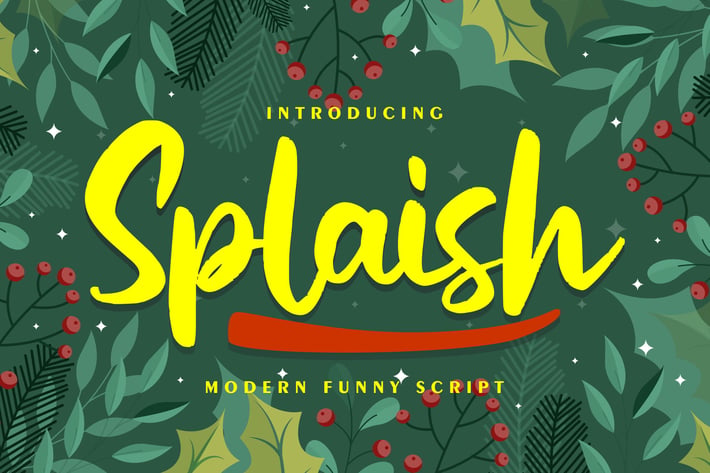
Splaish | Modern Funny Script Font
Splaish | Modern Funny Script Font with a calligraphy style, So beautiful on invitation like greeting cards, branding materials, business cards, quotes, posters, and more!